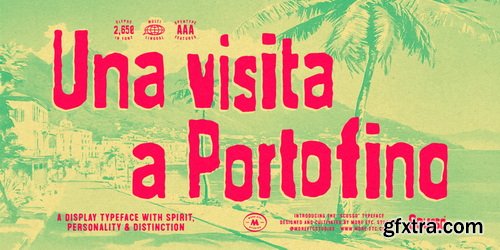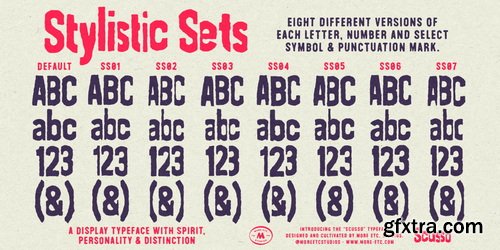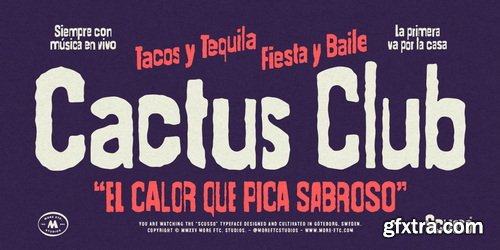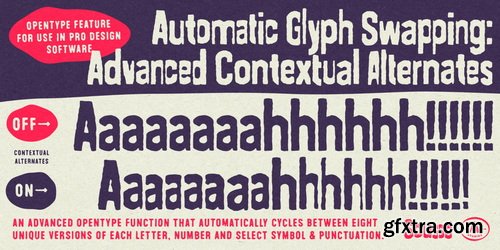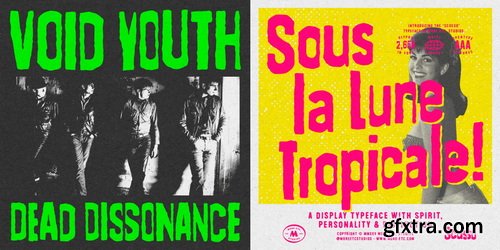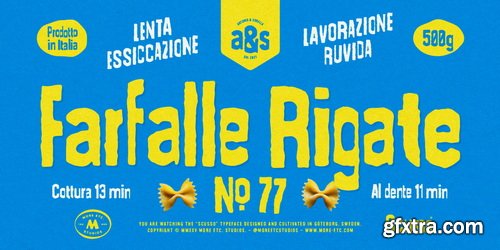
- Scusso is a display typeface with a focus on authenticity, passion and personality. It has a distinct cut-and-paste aesthetic and handcrafted character, inspired by mid-century posters and album covers.
- Its irregular contours and subtle distortions suggest a handmade process, as if each letter were manually cut to form words and then duplicated on a low-quality photocopier to achieve its worn and imperfect look. With this visual foundation, Scusso is a great fit for bold and expressive design projects such as book covers, album art, branding, posters and packaging.